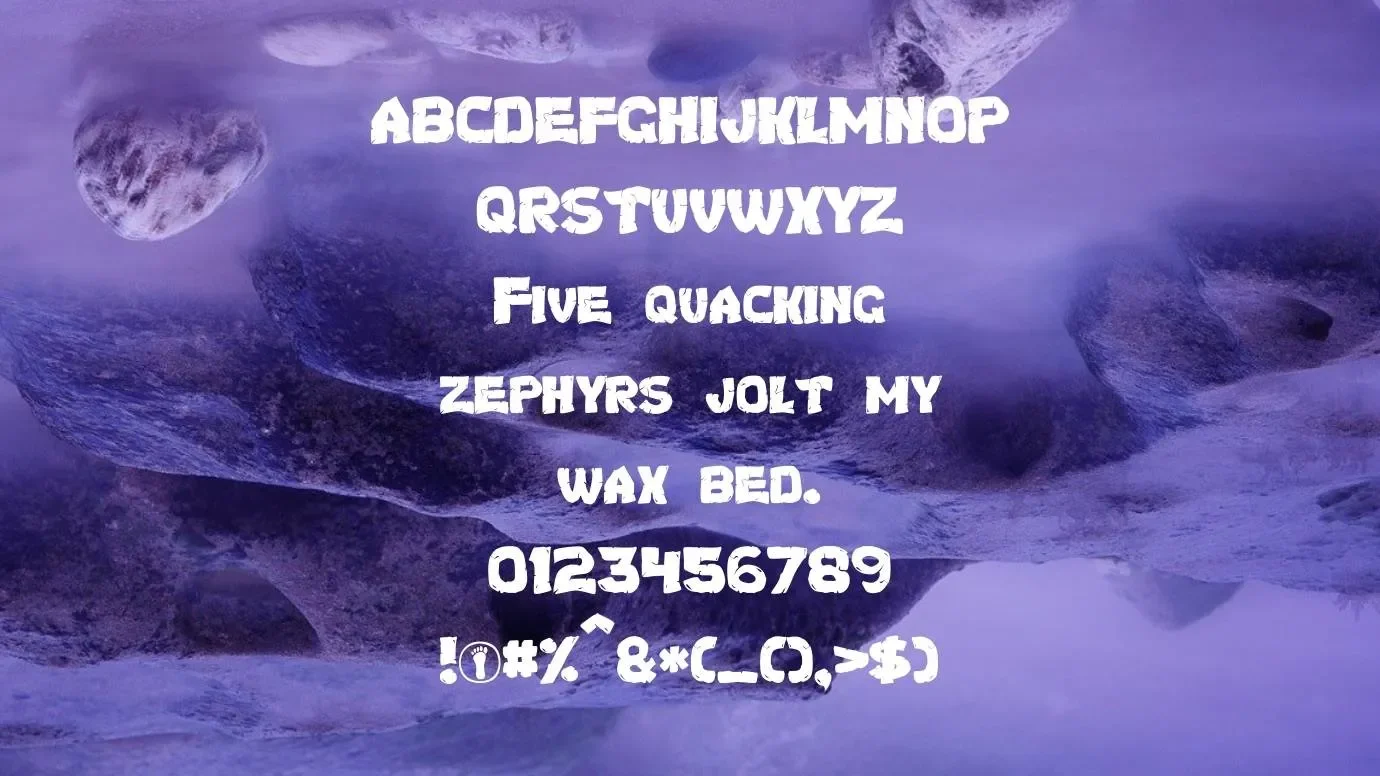
Introducing Ninja Turtles Font! Ninja Turtles is basically an American animated movie that was established by two famous designers Kevin Eastman and Peter Laird. This popular film was released in 1983 and its full name is Teenage Mutant Ninja Turtles or Teenage Mutant Hero Turtles.
The font that is used for the creation of this movie logo was developed by Xerographer Fonts. This typeface has one regular weight and it has attractive and fantastic fancy characters that’s why it belongs to the fancy typeface in the font categories.
It consists of numbers, icons, currency symbols, and so many special characters. This typeface is the most eye-catching font and its demand is so high in the font family.
Reason to Use Ninja Turtles Font
You can use this fancy and beautiful typeface for creating many astonishing animated logo designs, movies titles, and many others. It is also suitable for creating catalogs, newspapers, and magazines designs. Many designers use this font for making gift cards designs, business cards designs, and invitation cards designs.
You can utilize this font for creating flyers and postcards. Many clothes companies use this typeface for t-shirt design, cloth printing, branding logos, and advertisement purposes.
What type of font is Ninja Turtles Font?
It is a fancy font that was established by Xerographer Fonts. This typeface was designed based on the logo of an American animated film known as Teenage Mutant Hero Turtles.
Is there any alternative to Ninja Turtles Font?
Yes, A number of fonts are alternatives to this modern typeface but one font that is most similar to this typeface is known as AR Christy Font.